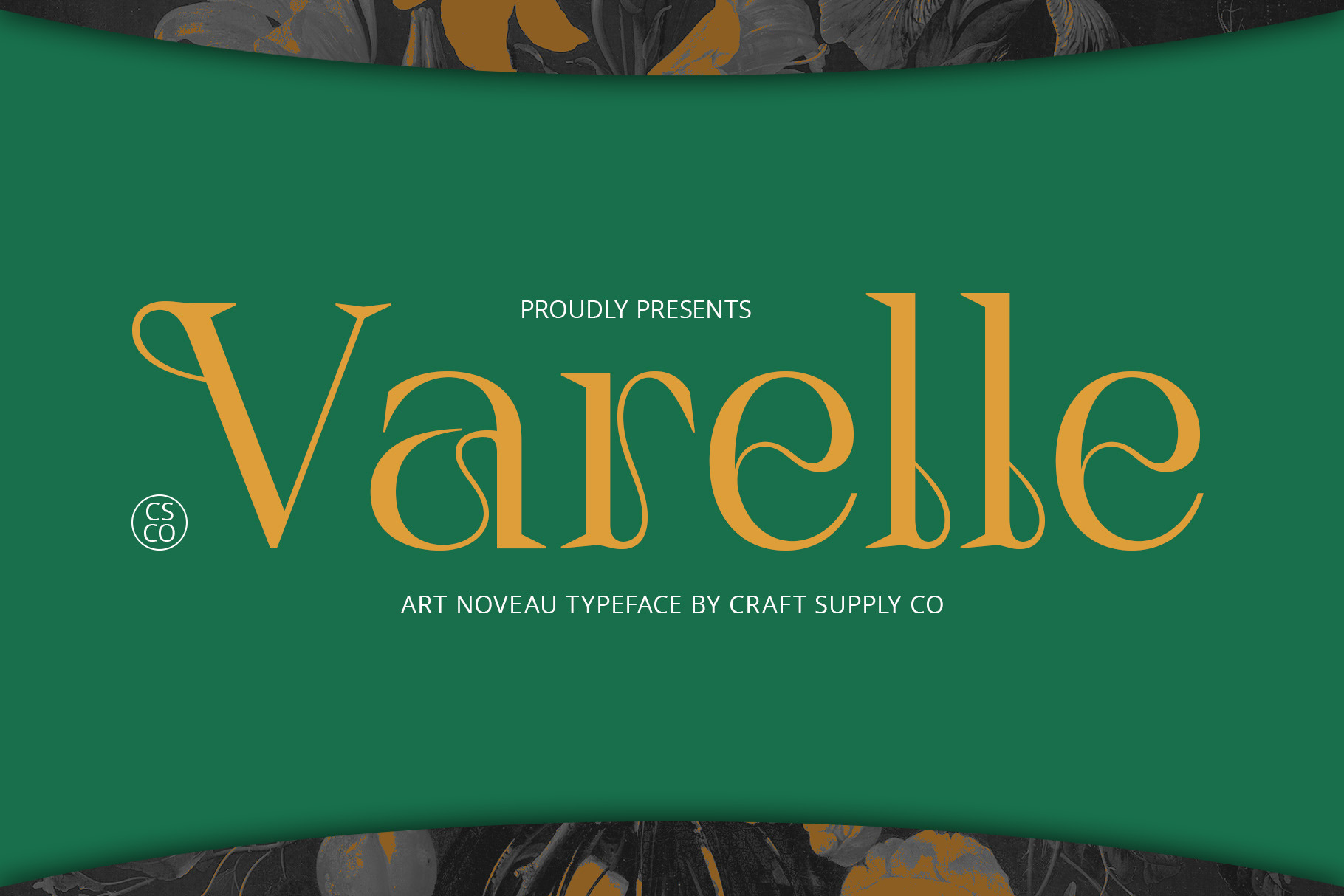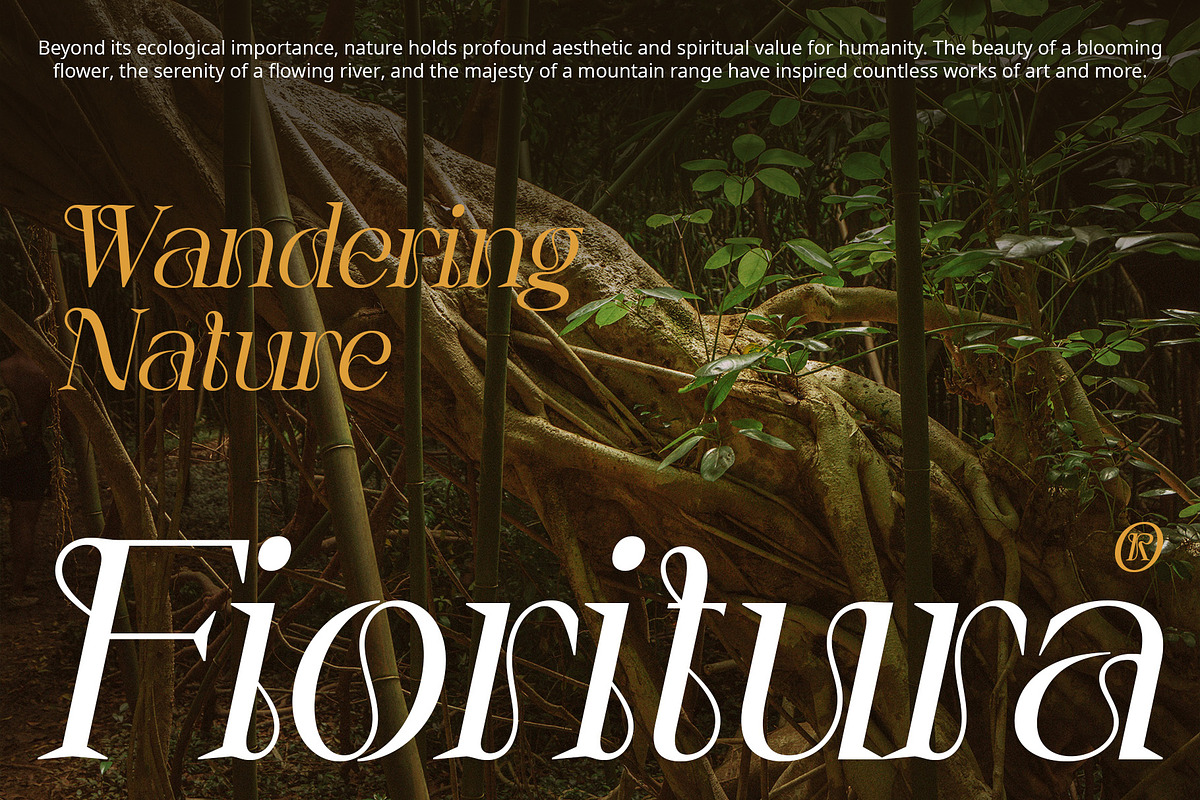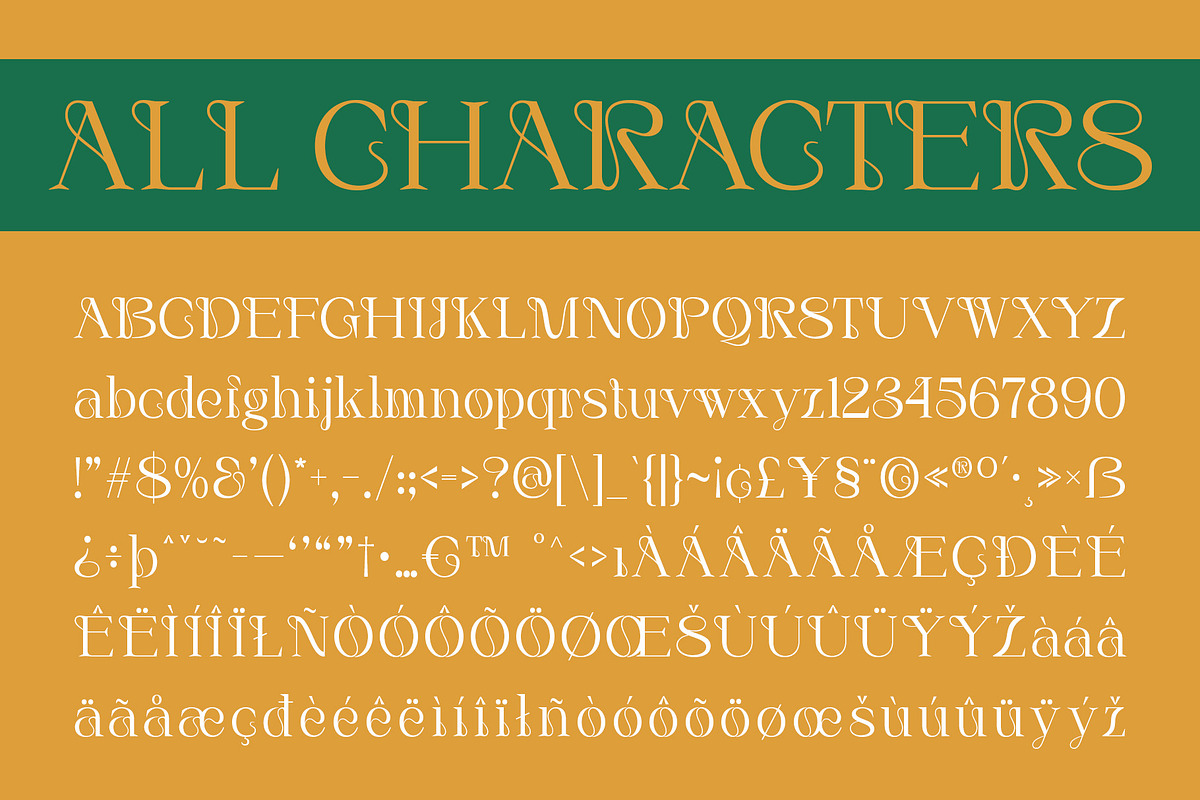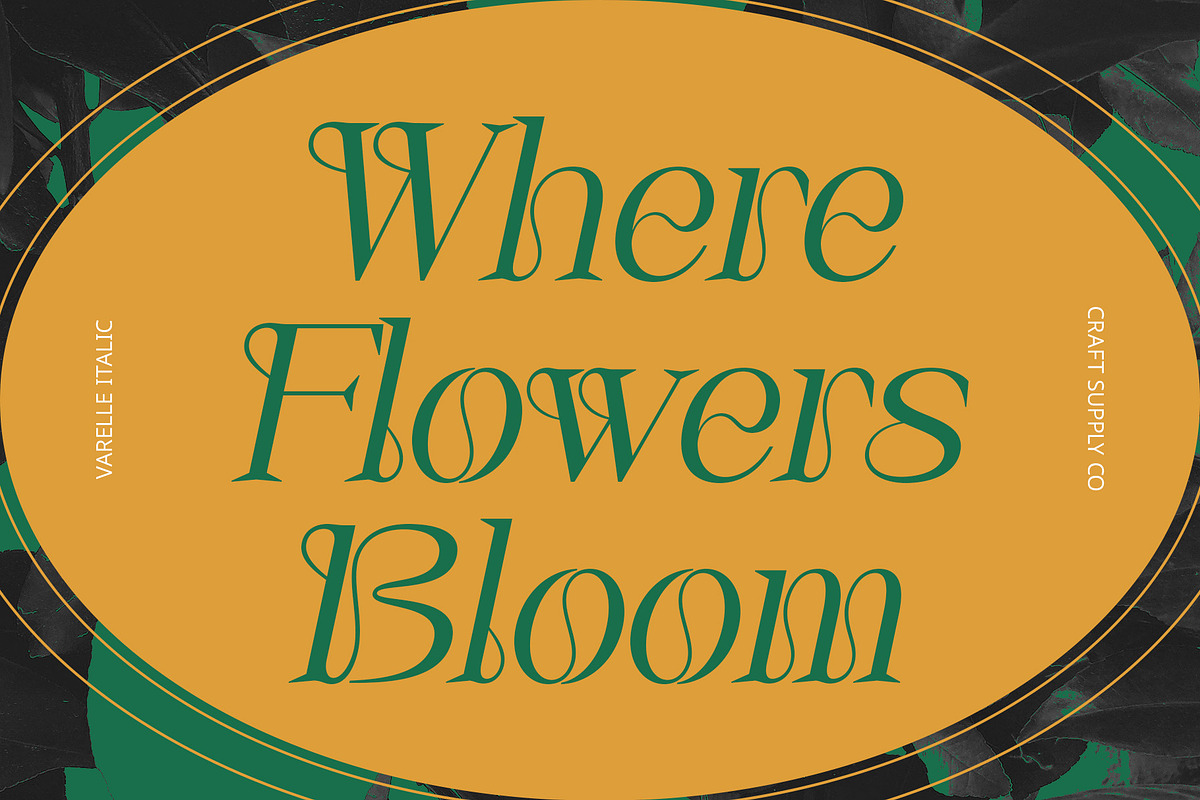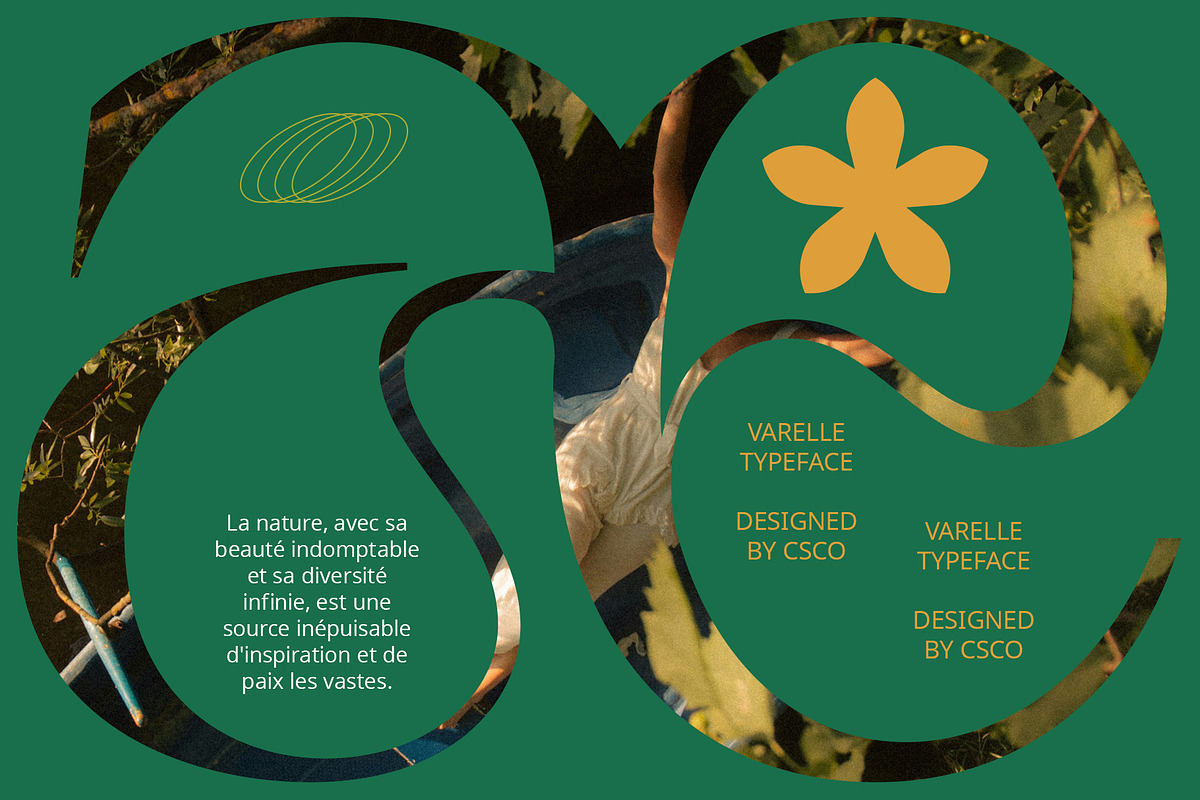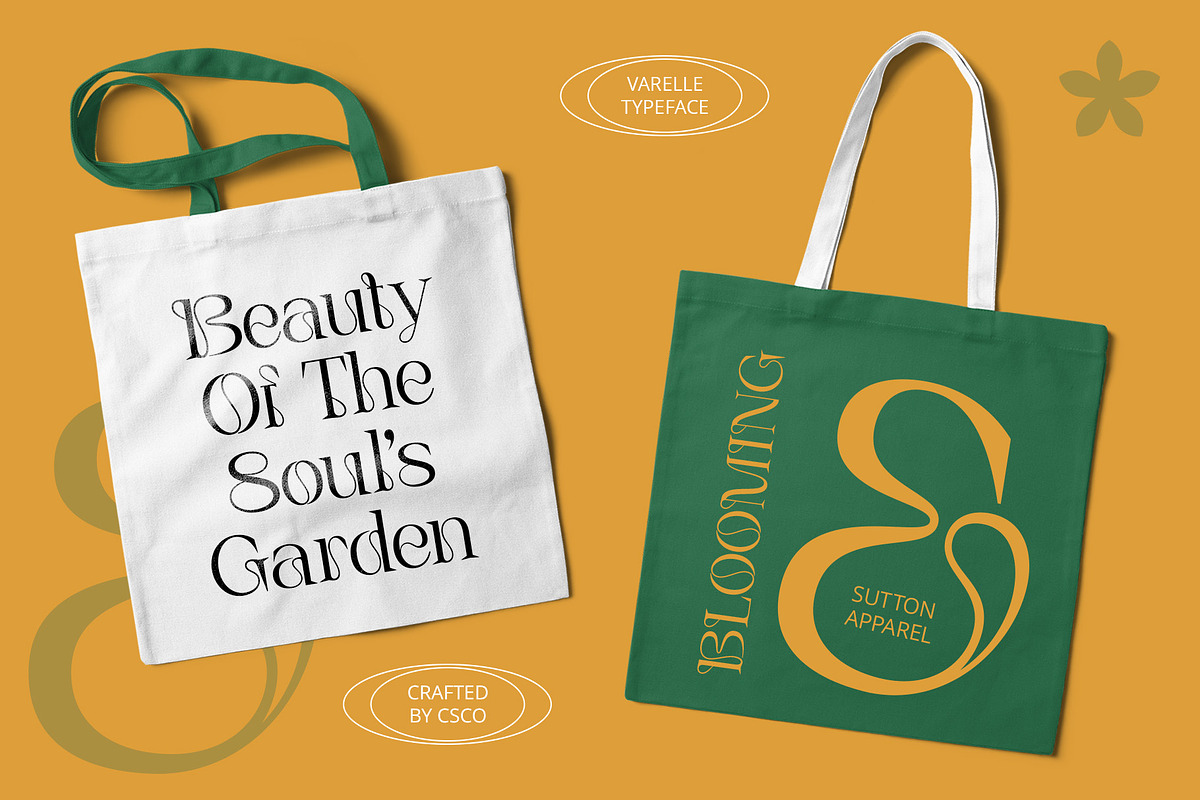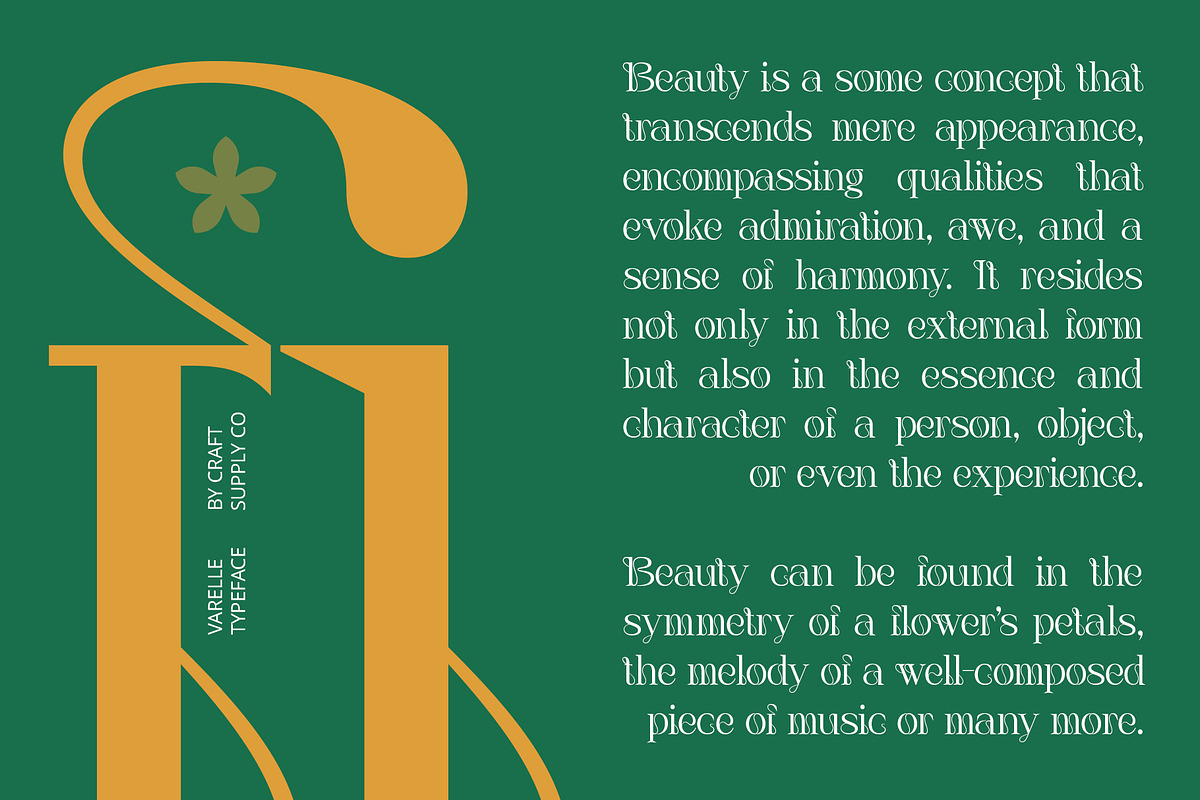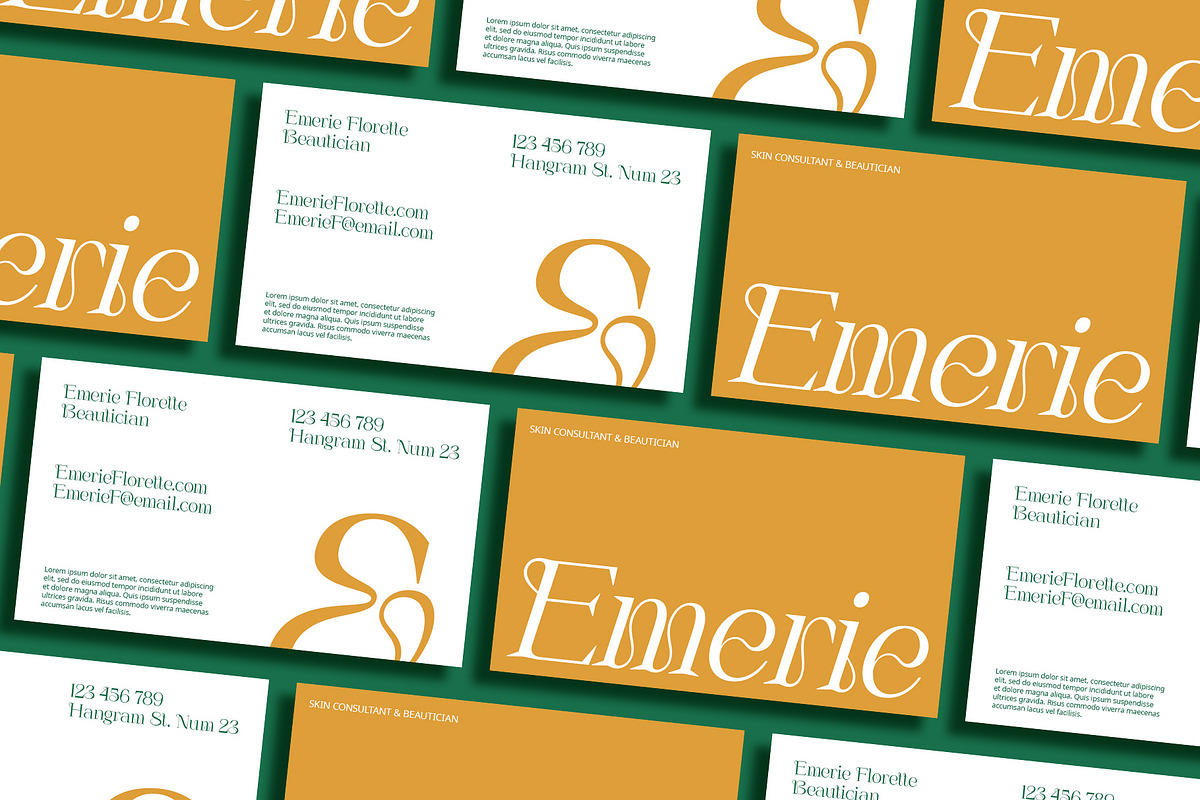
Varelle – Art Nouveau Font
Varelle: Where Beauty Meets Elegance
Art Nouveau Beauty Serif
Varelle is a serif font with an Art Nouveau style that exudes both beauty and elegance, perfect for sophisticated designs. Its intricate details and graceful lines create a timeless and refined look, ideal for high-end branding, invitations, and other projects that require an elegant touch.
Art Nouveau Style with Elegance
With its flowing curves and ornamental details, Varelle offers a fresh take on traditional serif fonts. The Art Nouveau style and elegant design create a harmonious and captivating appearance, adding a touch of sophistication to any design project.
Perfect for Sophisticated Displays
Whether you’re designing a luxurious invitation or creating an elegant logo, Varelle is sure to make an impression. Its Art Nouveau style and graceful elegance make it perfect for displays that demand attention and convey a sense of refinement and beauty.
Versatile and Easy to Use
Despite its intricate appearance, Varelle is versatile and easy to use. The font works well in both large and small sizes, making it suitable for a variety of applications, from headlines and banners to body text and more. With its blend of Art Nouveau beauty and elegant design, Varelle adds a unique and sophisticated touch to any design.
- Varelle Regular
- Varelle Italic